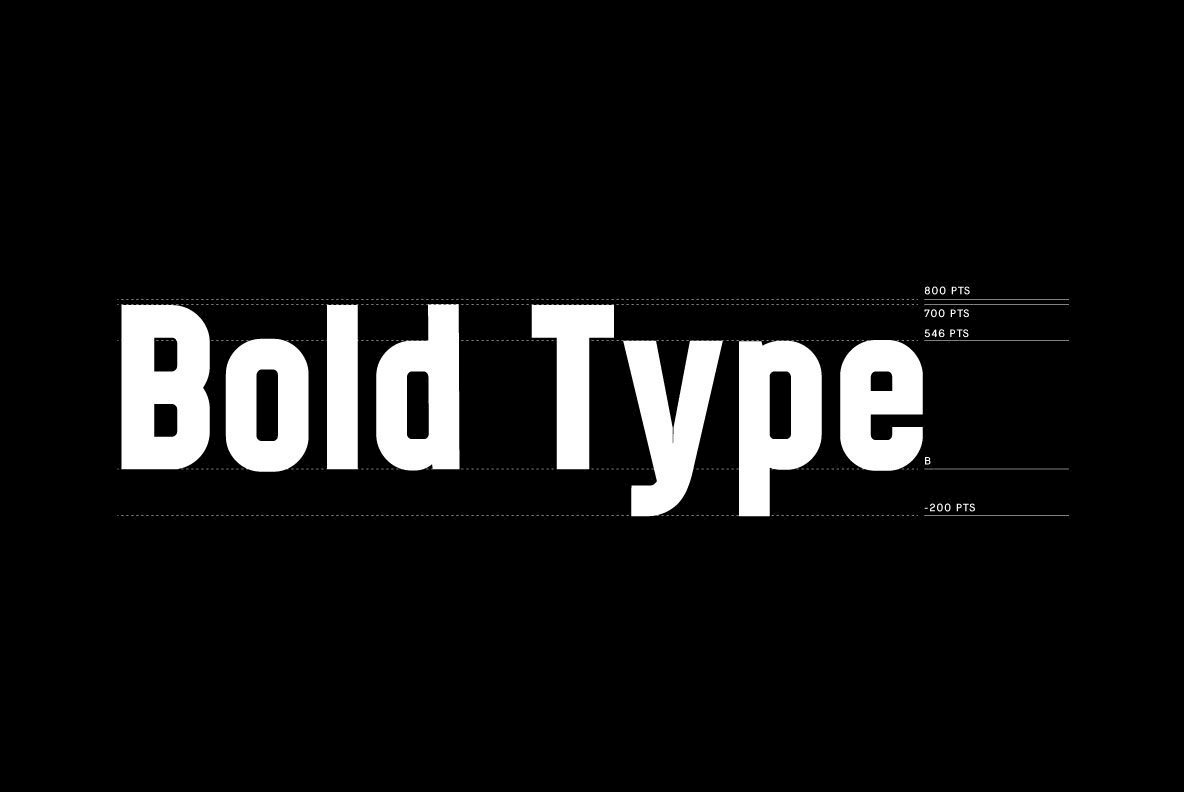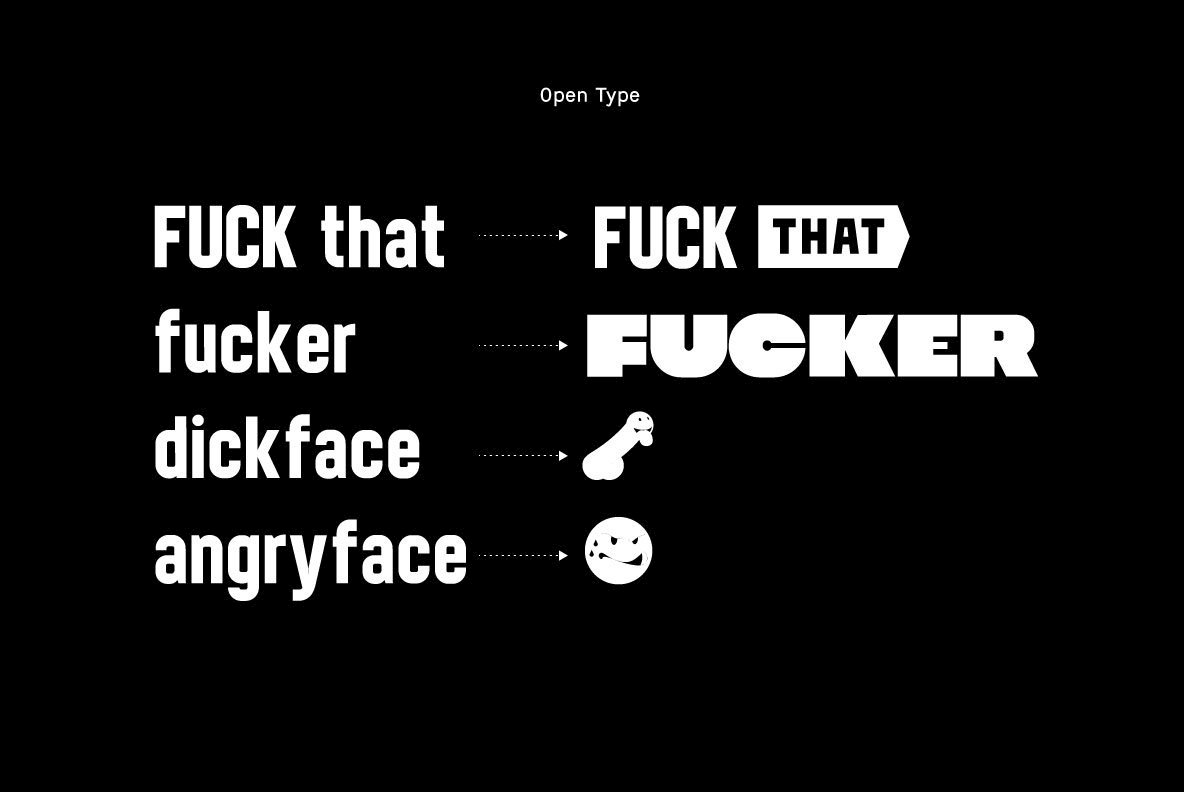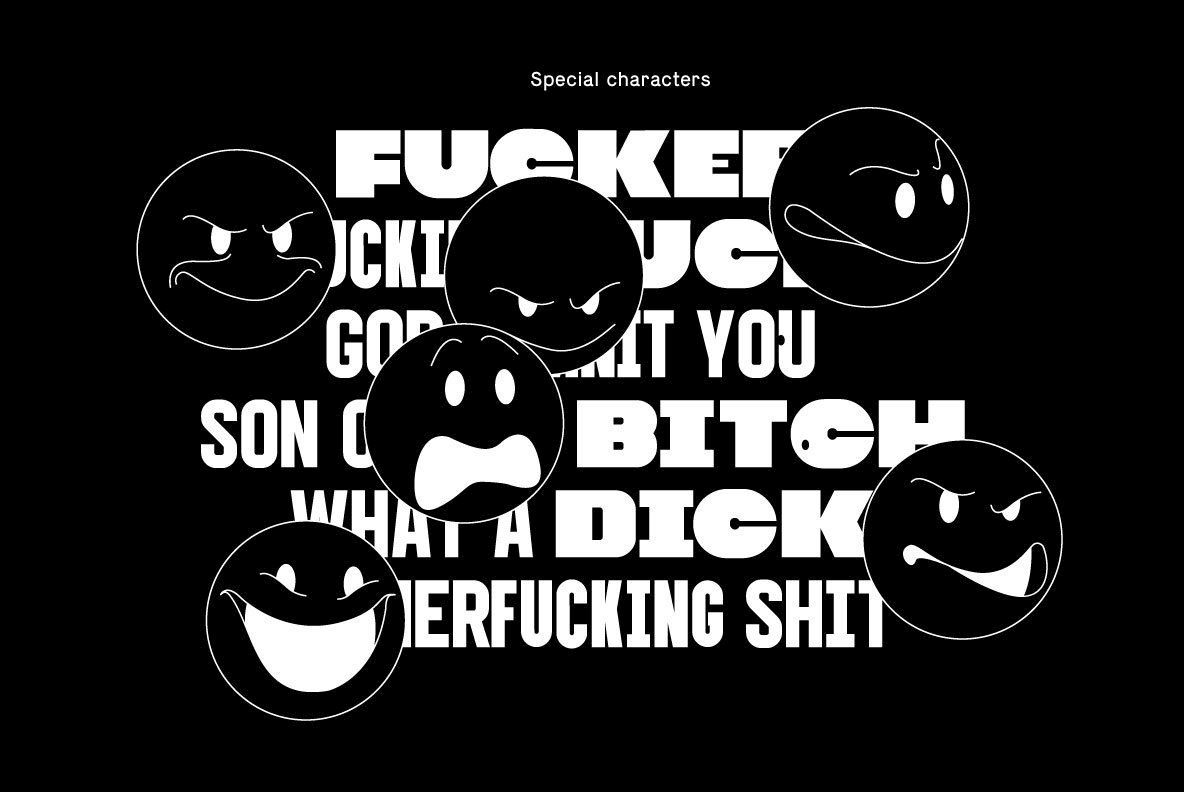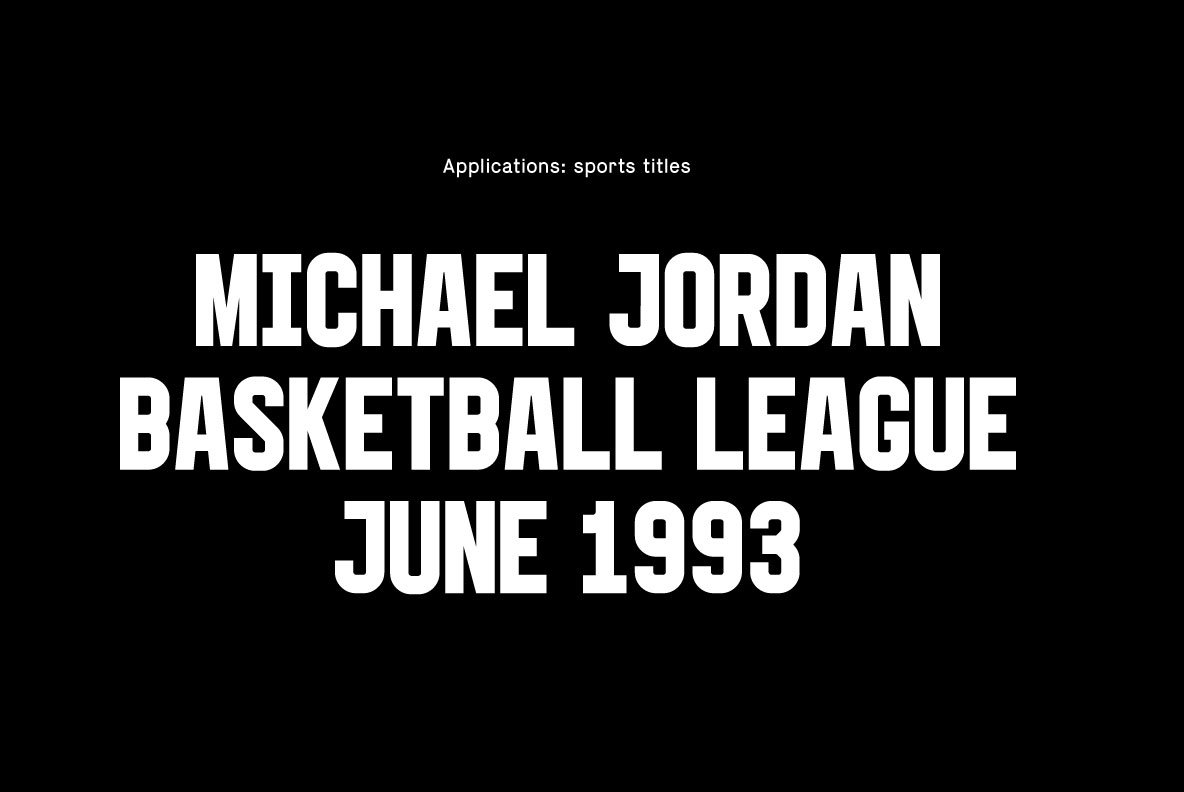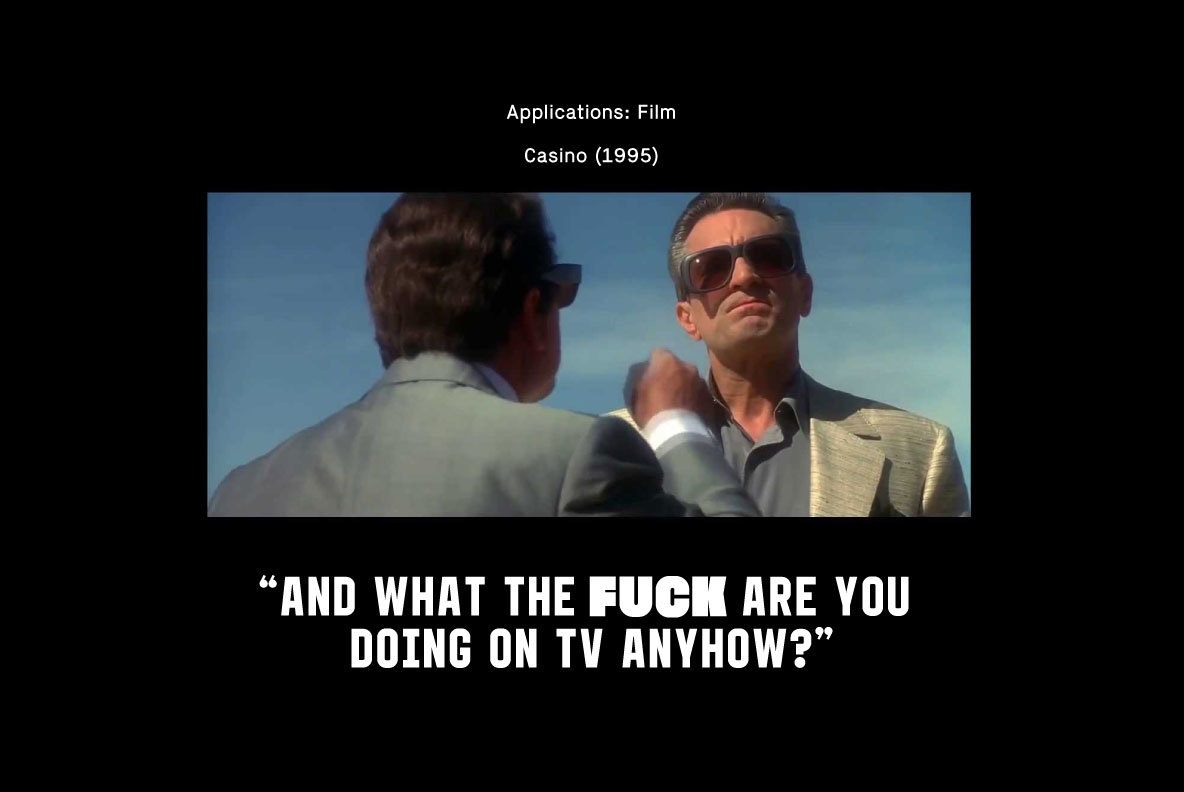
BFF NSFW Font
BFF NSFW
NSFW is a typeface designed to fit in unapologetic places that embrace free thinking, debate and bold opinions. It is recommended to be used for large scale applications in print, television and digital production.